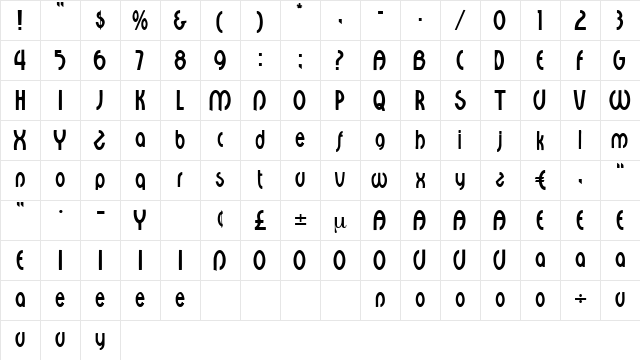
Walburga Regular
Design Context for Walburga Typeface
Walburga offers clean, dependable letterforms without strong stylistic allegiance, making it a practical choice for designers who need flexibility.